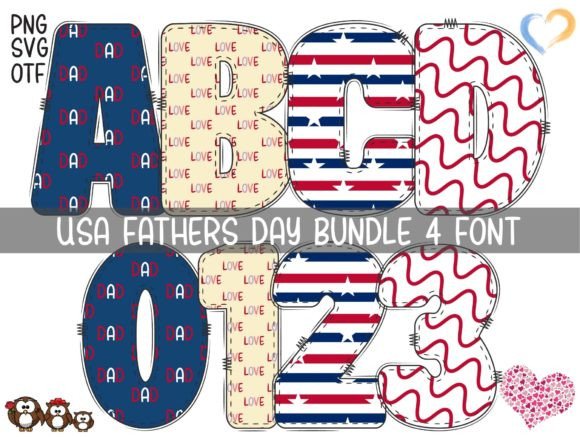
In a world where words dance across screens and pages, where designs ignite imaginations and create everlasting impressions, there lies a font family that stands tall - Usa Fathers Day Font. This typographic masterpiece, hailing from the creative minds at Font Design Market, is a vibrant symphony of colors and characters that will transform your digital creations into captivating visual experiences.
Picture this: A bold, patriotic color font that dances playfully across your designs, evoking the spirit of unity, pride, and celebration. Usa Fathers Day Font is more than just a collection of letters; it's an artistic expression that ignites emotions and sparks conversations. Its unique style adds a touch of whimsy and charm to any project, making it the perfect choice for stickers, mugs, t-shirts, ornaments, independence day event cards, event invitations, and countless other creative endeavors.
With Usa Fathers Day Font, you're not just downloading a font; you're embarking on a creative journey where colors and characters come alive to tell stories and captivate hearts. Its versatility knows no bounds, adapting seamlessly to various design aesthetics and themes. Whether you're crafting a patriotic design, celebrating special occasions, or simply adding a pop of fun and personality to your projects, Usa Fathers Day Font is your ultimate companion.
So, let your imagination soar, embrace the magic of Usa Fathers Day Font, and create designs that speak louder than words. With every character you type, you'll paint a picture, ignite emotions, and leave an indelible mark on the hearts of your audience. Download Usa Fathers Day Font today and experience the transformative power of typography.